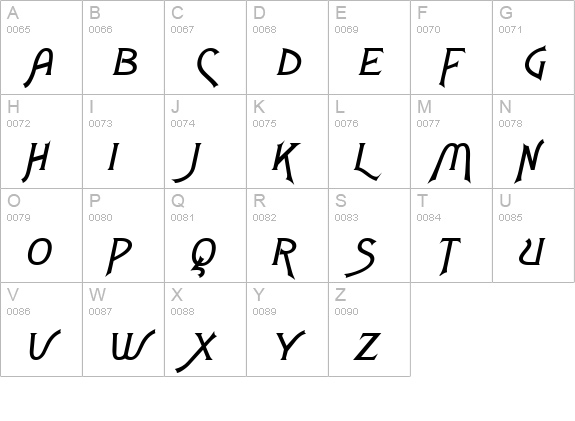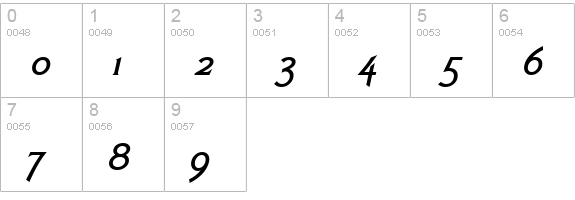
Fletch Wide BoldItalic Font Details
Fletch Wide BoldItalic is a distinctive, extended-width variant in the Fletch typeface family \xE2\x80\x94 well suited to design and typography projects.
Fletch Wide BoldItalic font is a striking and modern typeface that exudes confidence and style. Its bold and italic design adds a touch of sophistication to any project, making it perfect for headlines, titles, and branding materials. The wide spacing of the characters gives this font a dynamic and eye-catching appearance that will make your text stand out. Best of all, Fletch Wide BoldItalic font is available for free download at FontsMarket.com. This means you can easily access this versatile and impactful font without any cost, making it a valuable addition to your design toolkit. Whether you're working on a poster, website, or logo design, Fletch Wide BoldItalic font will elevate your project with its bold and distinctive aesthetic. Download it now and unleash your creativity with this impressive typeface.